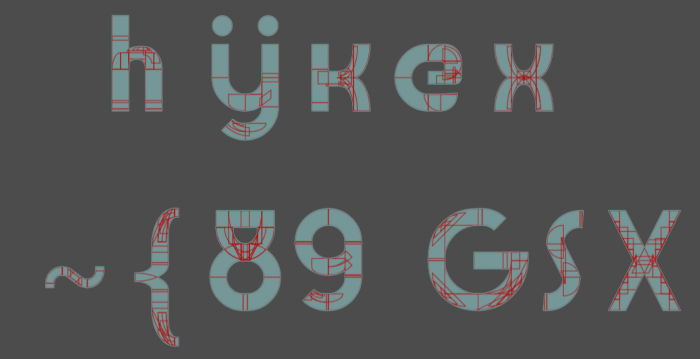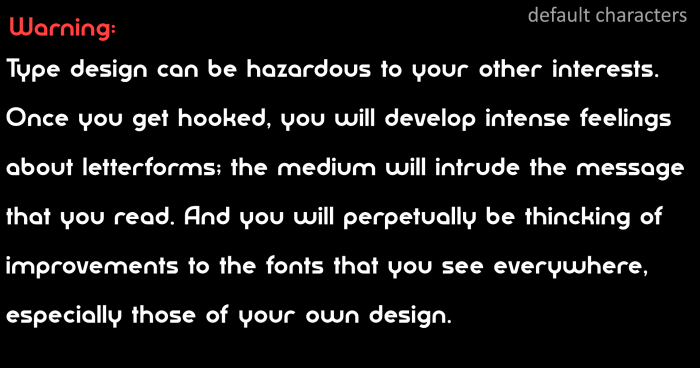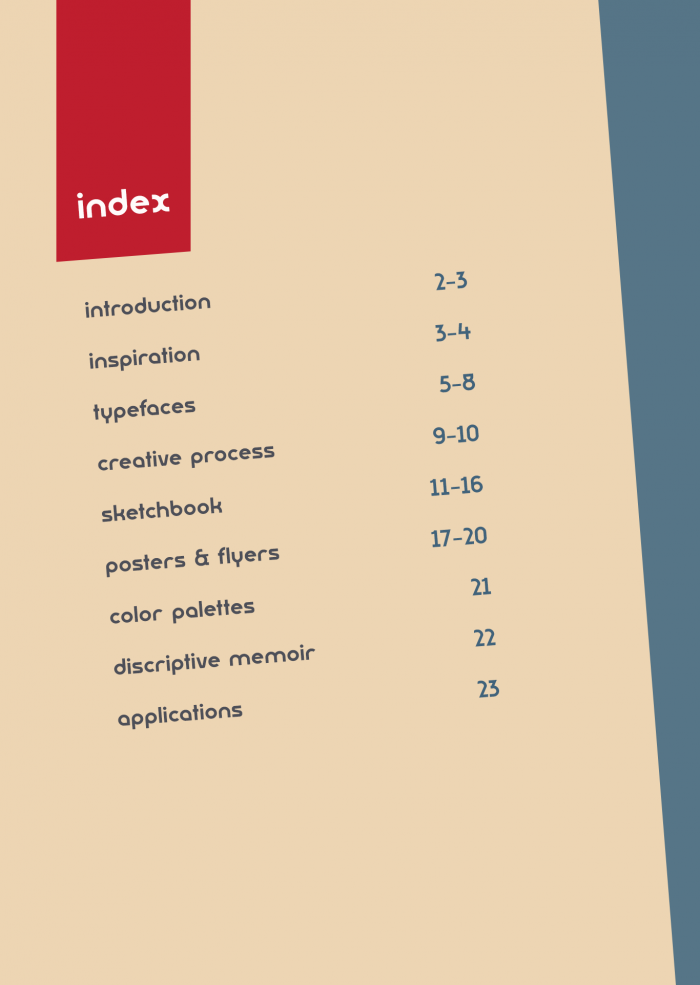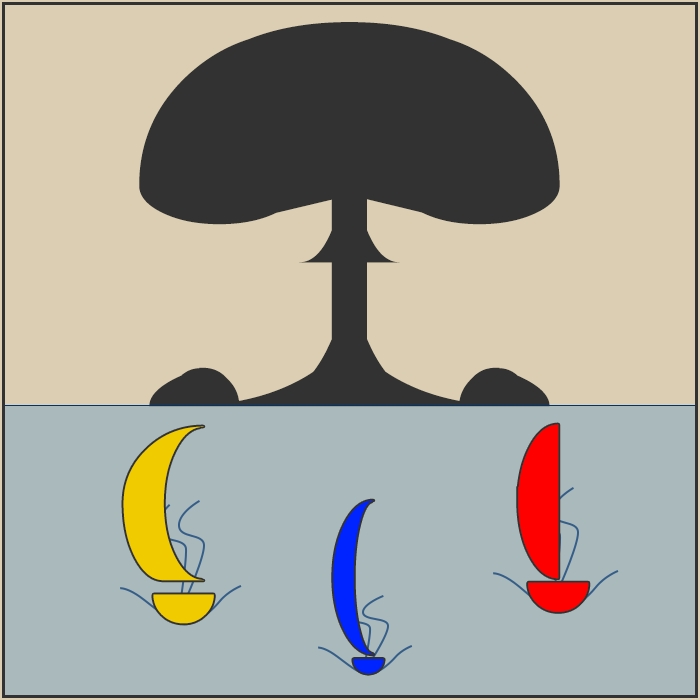
• BOOTSHAUS — Geometric "Bauhaus"-inspired modernist sans
Bootshaus is another endeavour into the Bauhaus realm of typography.
Focus for this font lies mainly within it's broad choice of glyph alternate forms to select from for stylish texts or logos.
Much of the extra glyph alternative forms are loosely based on the lettering by Sascha Lobe for the Bauhaus-Archiv
Many more glyph alternative forms are planned to be included, stay tuned..
Many new glyph alternative forms added and a lot refined as well, more still to come..
Besides that I've also included more kerning pairs!
• Included 29 new additional glyph alternate forms.
— The font contains a total of 214 alternate forms. Most are letters, but there are some alternate punctuation marks included as well. Unlike the 'default' punctuation marks these alternative forms are specially fitted to suit the small capital letters and align with the font's x-height.
Oh and of course I forgot to mention the best of all...
The font comes with 3 sailing yachts and a nuclear detonation / mushroom cloud.. So, christmas came early this year my friends!
yeah so, assuming these are alternative glyph forms, it shouldn't be too hard to state that the letter-alternates aim at a specific contextual implementation in stylistic text formatting. I wouldn't recommend them for large chunks of text. As in that case the font default letterforms are simply suppose to be used anyway.
To clarify the character mapping a little further.. The reason for some of the glyph alternates that might resemble another letter, which had already been included within the “Unicode standard” are not located in their respected designated code-points, mainly is because these sets of alternative forms were arranged into 3 “contiguous” ranges of adjacent code-points.
One for uppercase letters (Private Use Area 1), one for lowercase letters (Private Use Area 2) and another for small capital letters (Halfwidth and Fullwidth Forms).
Mapping them to their actual respected code-point within the Unicode table would be very undesirable, and only scatter the many various glyph alternates, radomly all across multiple Unicode planes. Meaning, no dedicated sets, hence, making it a lot harder to locate and access all those glyph alternate forms to unlock the fonts full typographic power.